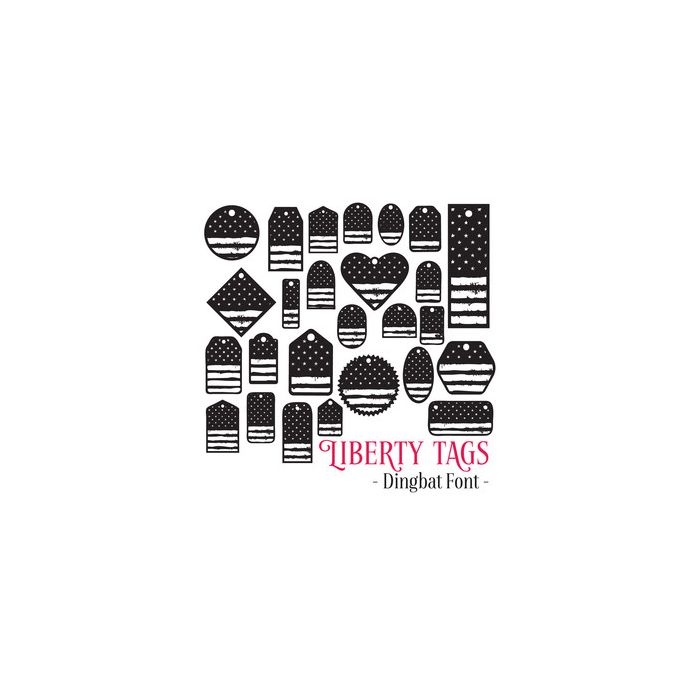
liberty tag font
Liberty Tags Dingbat Font - with 26 Stars & Stripes Tags all allocated to uppercase and lowercase letters and accessible via the Glyphs Panel.